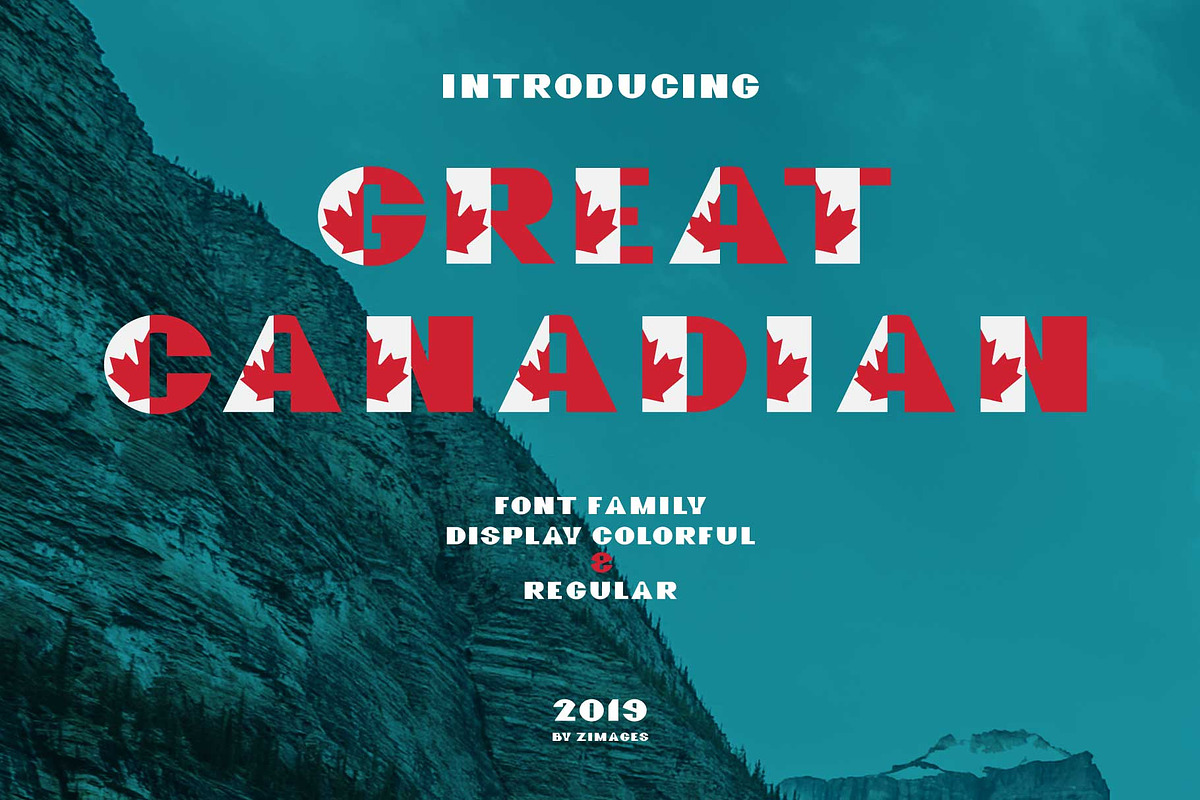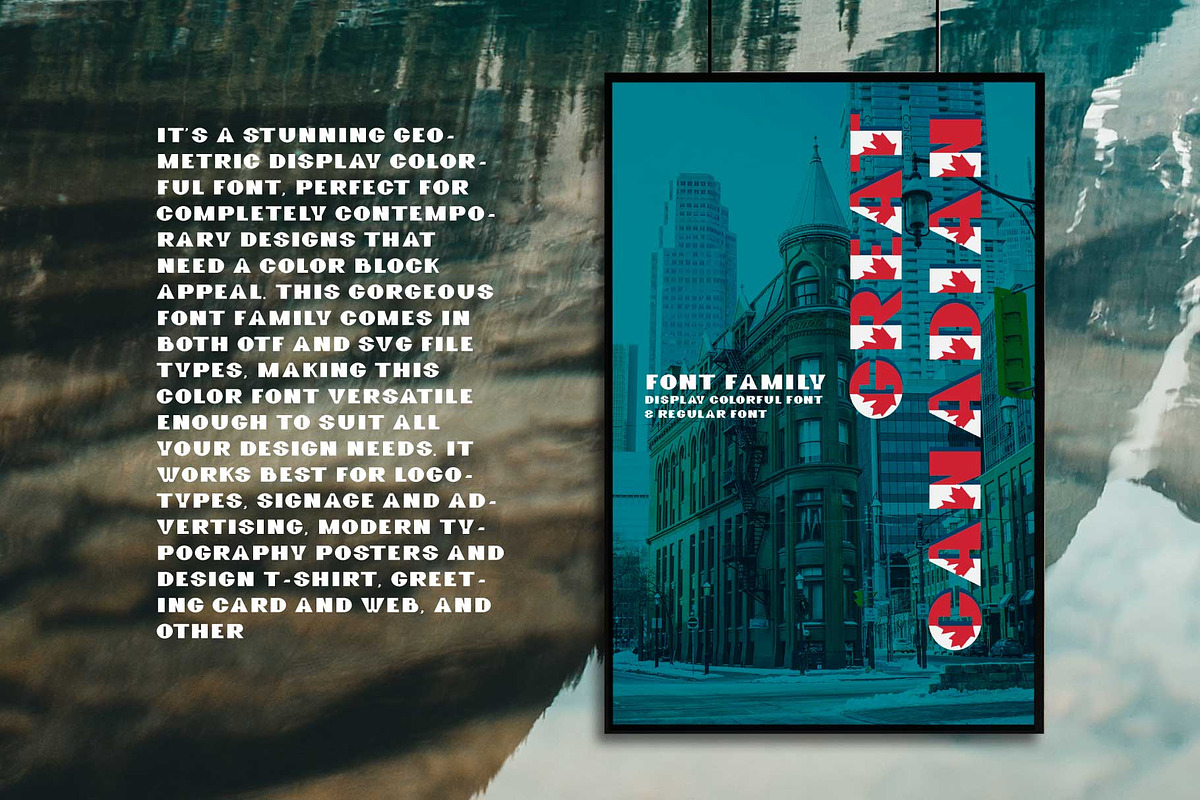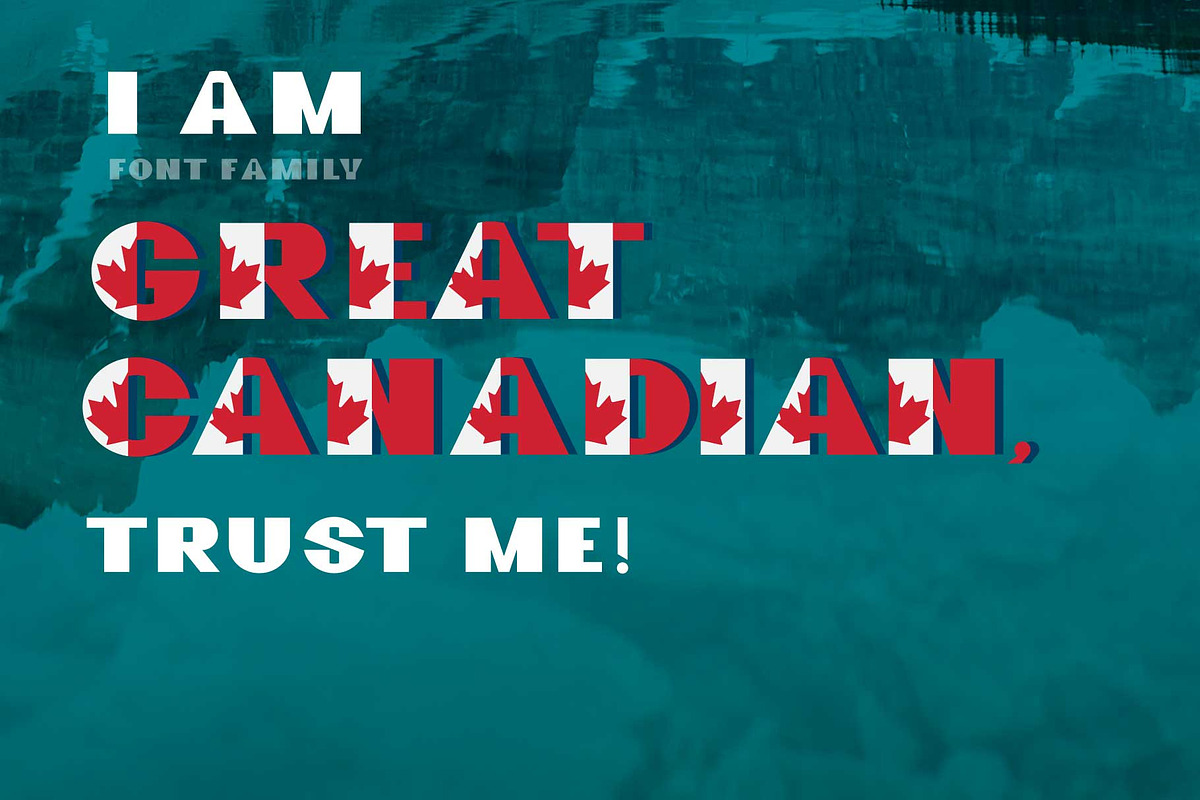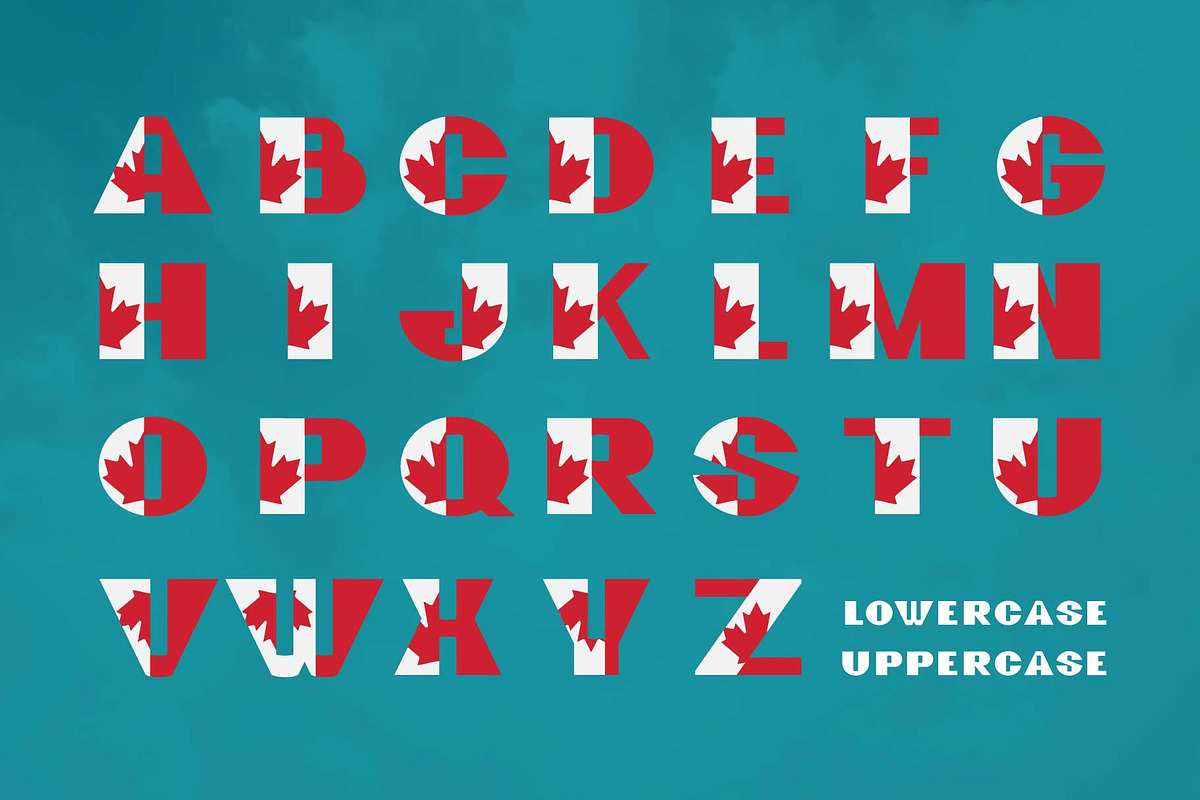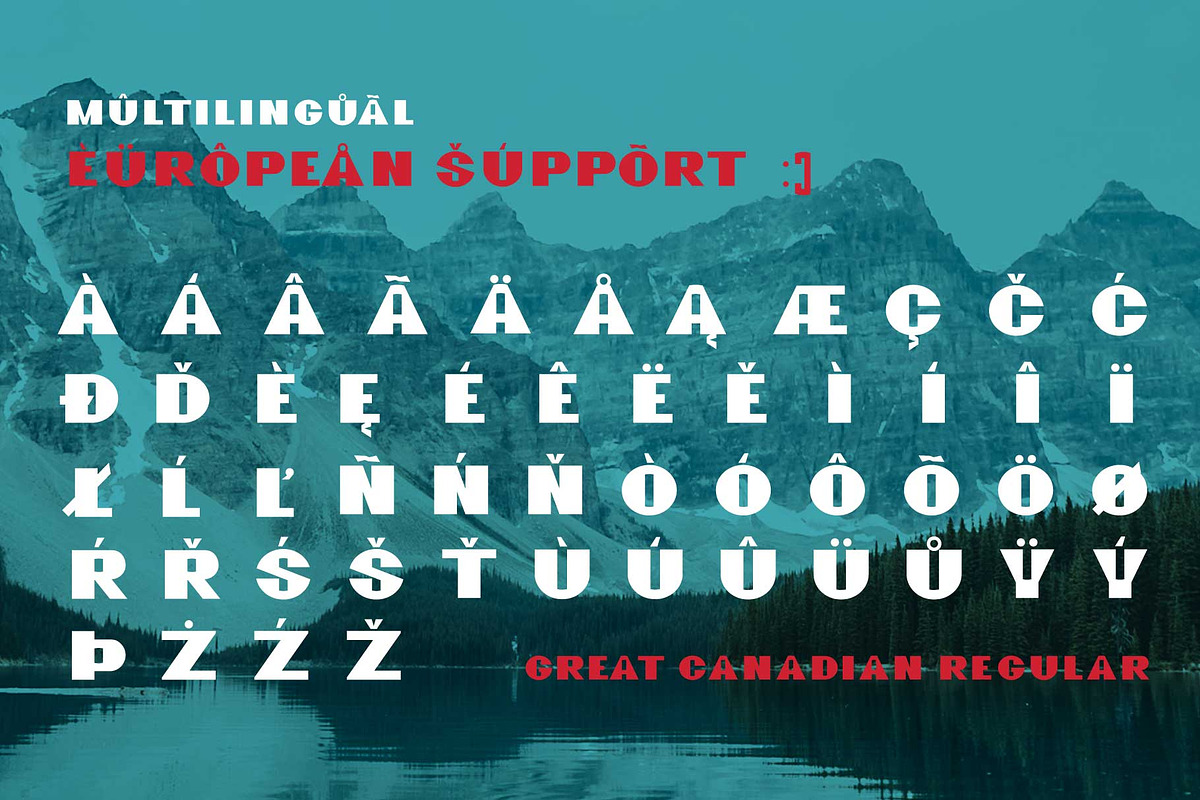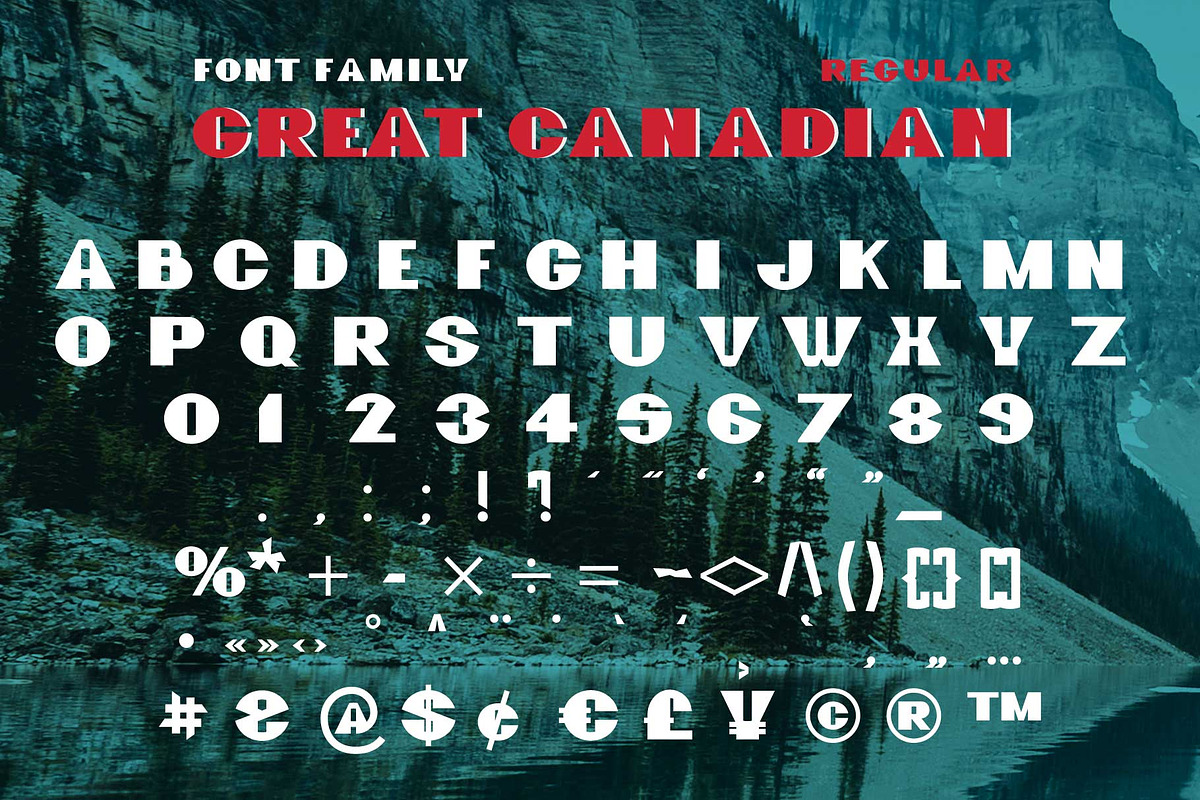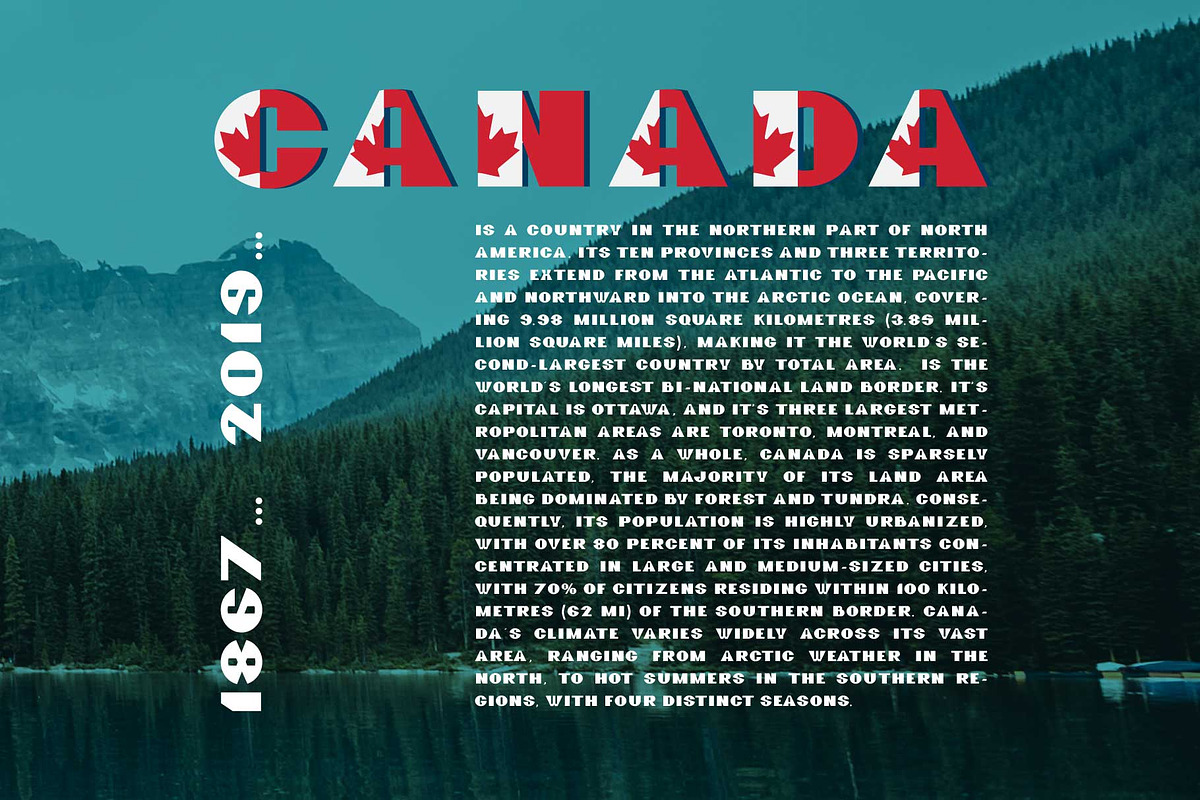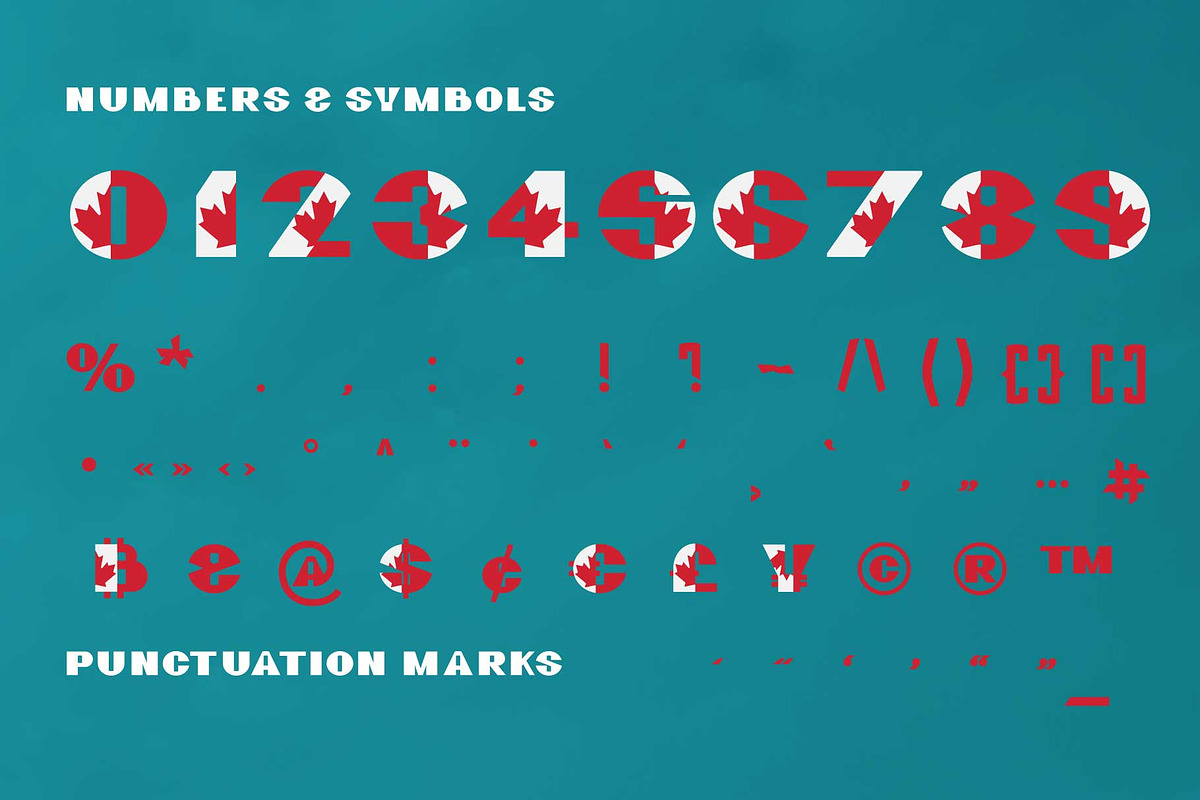
GreatCanadian-font family
GreatCanadian colorful OTF font Modern display colorful grotesque sans-serif font.
By creating GreatCanadian colorful font I was inspired by the holiday by the day of Canada, on 1th of July and national Canada flag.
It’s a stunning geometric display colorful font, perfect for completely contemporary designs that need a color block appeal. This gorgeous font family comes in both OTF and SVG file types, making this color font versatile enough to suit all your design needs. It works best for logotypes, signage and advertising, modern typography posters and design t-shirt, greeting card and web, and other
Why GreatCanadian-font family is worth a look
GreatCanadian-font family by Zimages fits naturally into Branding, posters, packaging, typography.